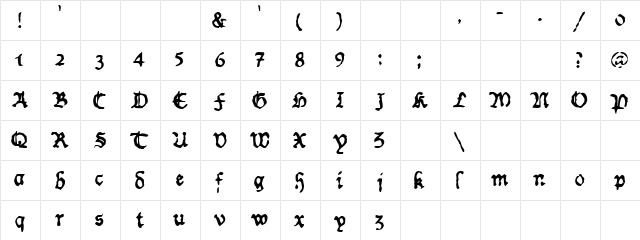
Worn Manuscript Rough Rough Font Preview
Worn Manuscript Rough Rough
Design Context for Worn Manuscript Rough Typeface
Worn Manuscript Rough trades polish for personality, using distressed and eroded forms to bring grit and attitude to creative work.
A strong fit for alternative music projects, graffiti-adjacent design, and anything that deliberately resists polish.
Pro Tip: Use Worn Manuscript Rough at larger sizes where the texture and irregularity of each letterform can be clearly seen — it loses its character at small sizes.